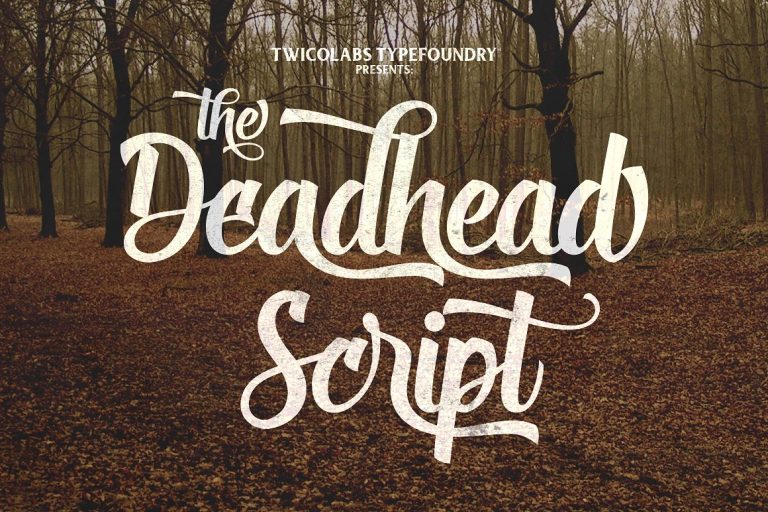
Deadhead Script Font
Hello world..!! Introducing Deadhead Font. Deadhead is playful typeface that inspired from brush lettering. Made with high attention to the details that will bring your design to the next level. Suits best for almost all design themes; vintage, modern, gothic, dangdut pantura, etc..